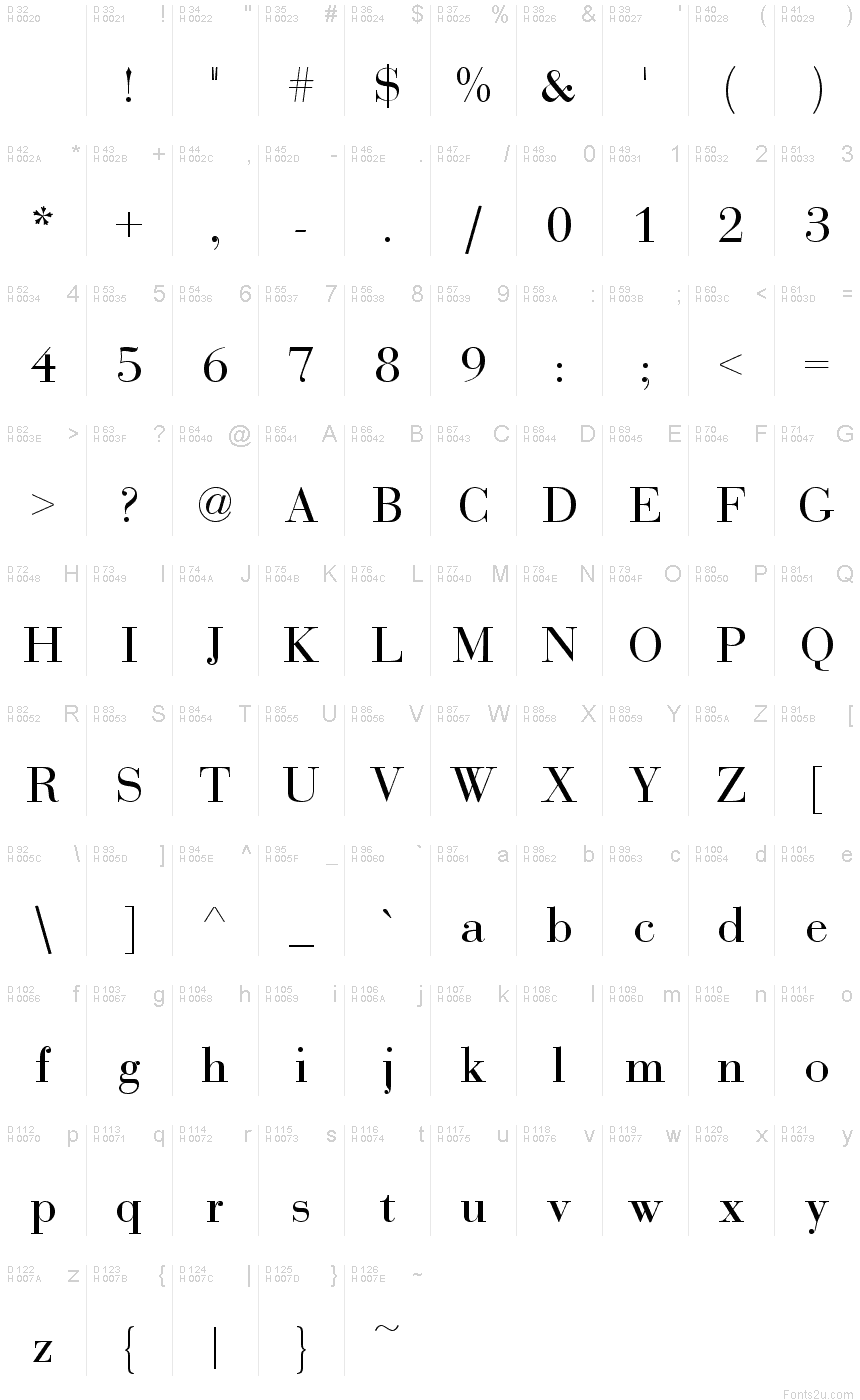
Bedini
Bedini font by MGI Software is a free serif typeface with a strikingly polished, almost glossy presence. Its tall, refined letterforms, knife-thin details, and generous curves give it a couture feel—like ink drawn with a superfine nib on smooth paper. The rhythm between thick strokes and delicate lines creates a poised, dramatic texture that instantly commands attention without feeling fussy.
Using Bedini, this free font shines on magazine covers, fashion branding, book titles, posters, cosmetics packaging, and elegant invitations. It loves large sizes where its crisp details can really breathe, and pairs beautifully with a clean geometric sans for body text or captions.